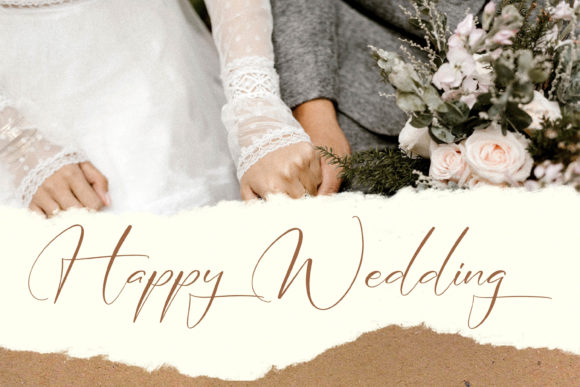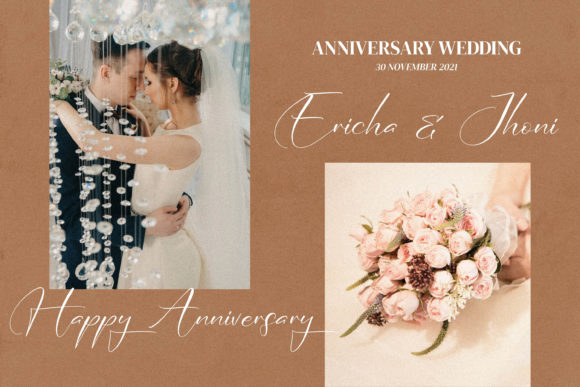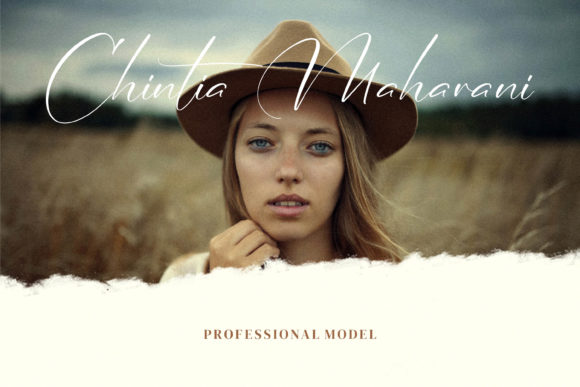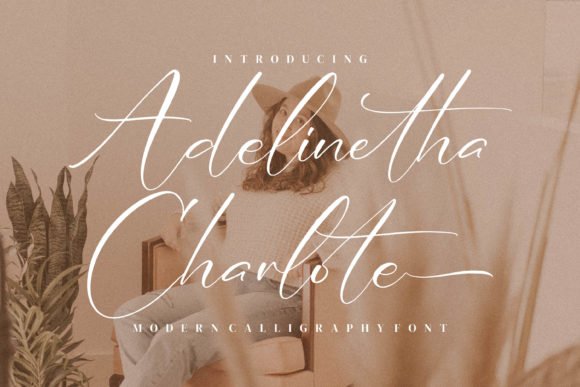
Introduction to Adelinetha Charlote Font
Adelinetha Charlote is a premium script font suitable for any projects such as logos, branding projects, homeware designs, product packaging, mugs, quotes, posters, shopping bags, t-shirts, book covers, name cards, invitation cards, greeting cards, labels, photography, watermark, special events, and all your other luxury projects that need a premium signature taste.
Key Features of Adelinetha Charlote Font
Why Choose Adelinetha Charlote Font?
Adelinetha Charlote Font offers exceptional quality and versatility, making it a valuable addition to your design toolkit. Whether you’re creating for personal projects or commercial use, Adelinetha Charlote Font delivers professional results.